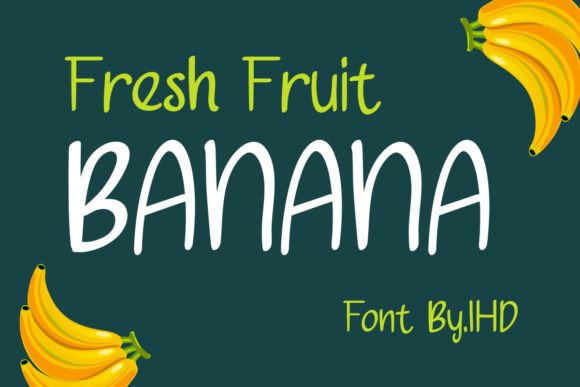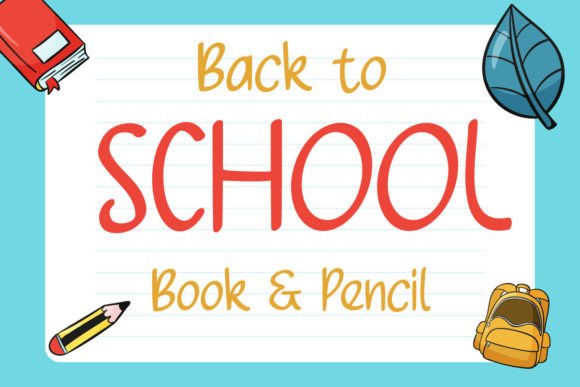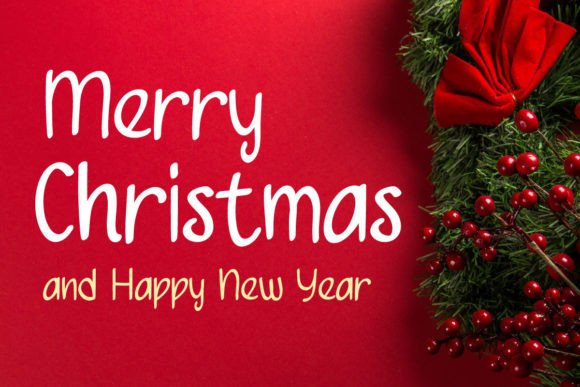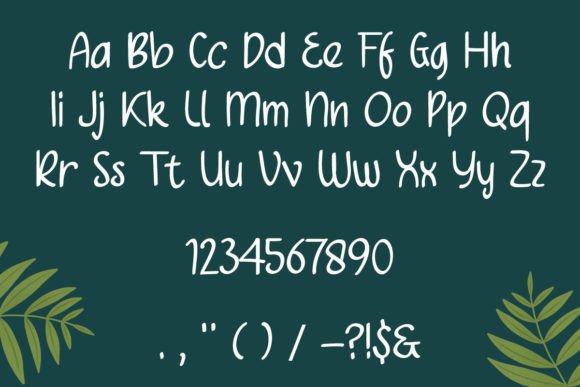
Introduction to Rapia Pedot Font
As designers, we’ve all been there – staring at a blank canvas, waiting for that spark of creativity to ignite. The blank page stares back, a daunting challenge to bring our ideas to life. But what if we told you that we’ve found a secret ingredient to spice up your next project? Enter Rapia Pedot Font, a fun and playful display font that’s about to revolutionize the way you design.
This free download is more than just a design resource – it’s a key to unlocking your creative potential. With its high-quality, transparent background, Rapia Pedot Font is perfect for adding a touch of whimsy to your next design project. Whether you’re a seasoned pro or just starting out, this versatile font is sure to elevate your work to new heights.
Key Features of Rapia Pedot Font
- High-quality, free font perfect for creative projects and design resources.
- Unique, handwritten font style with a transparent background, ideal for overlaying on images or videos.
- Designed to be highly legible, making it suitable for use in various design contexts, from print to digital media.
Honest Review: Rapia Pedot Font
As a designer, I’m always on the lookout for unique and high-quality design resources to enhance my creative projects. Recently, I stumbled upon the Rapia Pedot Font, and I must say it’s been a pleasant discovery.
Here’s what works well:
- ✨ High-quality design: The font is crisp, clean, and visually appealing, making it perfect for a wide range of creative projects.
- ✨ Versatility: Rapia Pedot Font is suitable for various design applications, from digital interfaces to print materials.
- ⚠️ Limited customization options: The font doesn’t offer extensive customization options, which might be a drawback for some designers.
- ⚠️ Transparent background required: To fully appreciate the font’s design, a transparent background is recommended, which can be a challenge for some design applications.
Overall, I’m impressed with the Rapia Pedot Font’s quality and versatility. It’s an excellent addition to any designer’s toolkit, and I would recommend it to anyone looking for a high-quality, free design resource for their creative projects.
Rapia Pedot Font
For the best results, use Rapia Pedot Font on a transparent background or with a contrasting color scheme. Experiment with different font sizes and styles to create a visually appealing design.
Rapia Pedot Font is ideal for creative projects such as logo design, typography-based art, and branding materials. Its high-quality design makes it perfect for both personal and professional projects.
Compared to Rapia Pedot Font, Montserrat Font has a more minimalist and modern feel, making it a great choice for designs that require a sense of simplicity and clean lines.
Playfair Display Font is an elegant, serif font designed for use in high-end design projects. It’s perfect for use in creative projects such as luxury branding, high-end magazines, and other design resources where a touch of sophistication is necessary. Playfair Display Font can be used on a transparent background to add a touch of luxury to any design.
No, the Rapia Pedot Font does not have a transparent background. However, you can use it with a transparent background image or design element to create a unique and creative visual effect.
Q: Is the Rapia Pedot Font available in different font sizes and styles?
Yes, the Rapia Pedot Font is available in a range of font sizes and styles, including regular, italic, and bold. You can use the font in a variety of settings, from headings and titles to body text and captions, to add visual interest and emphasis to your design.